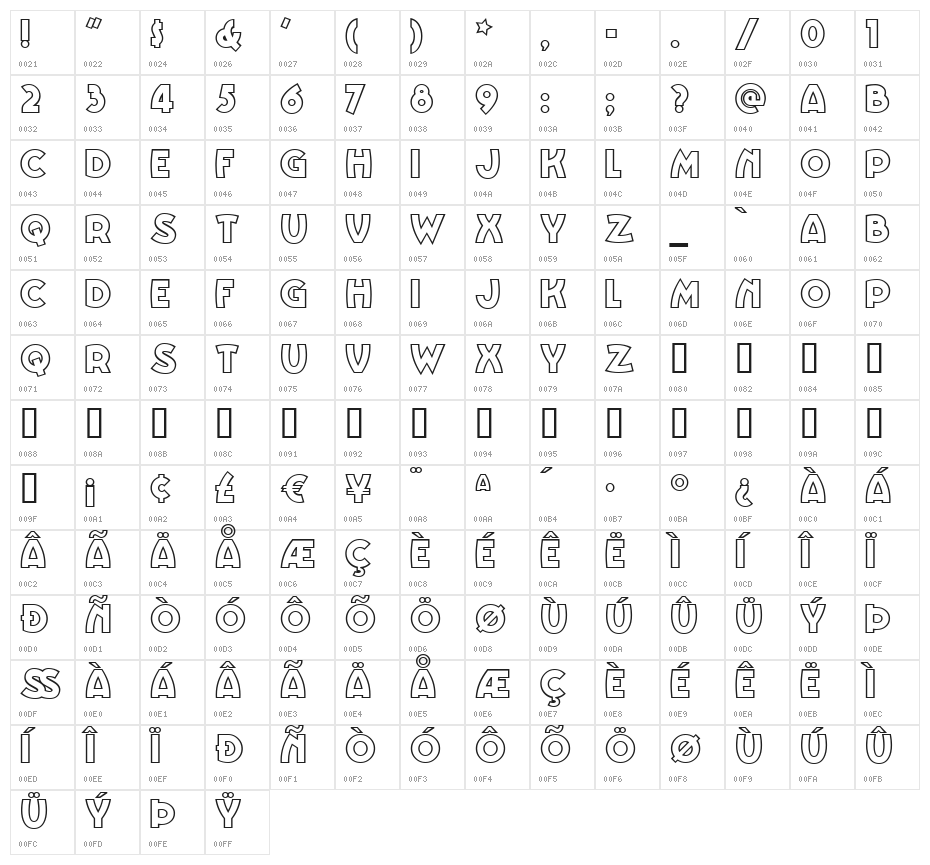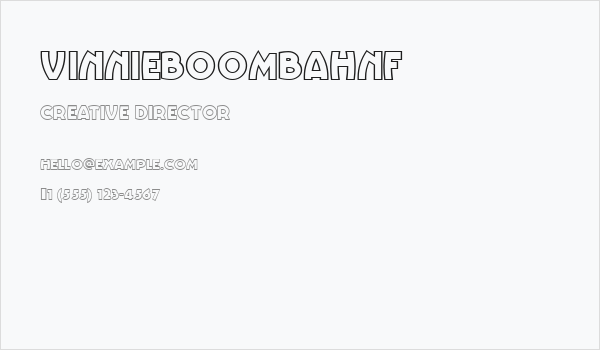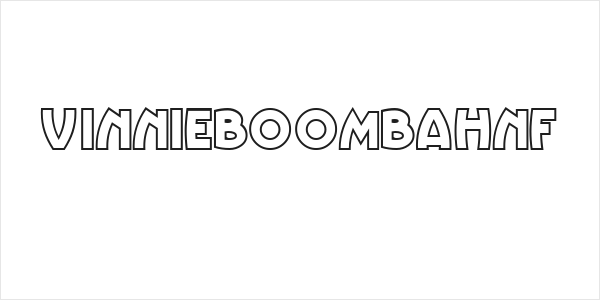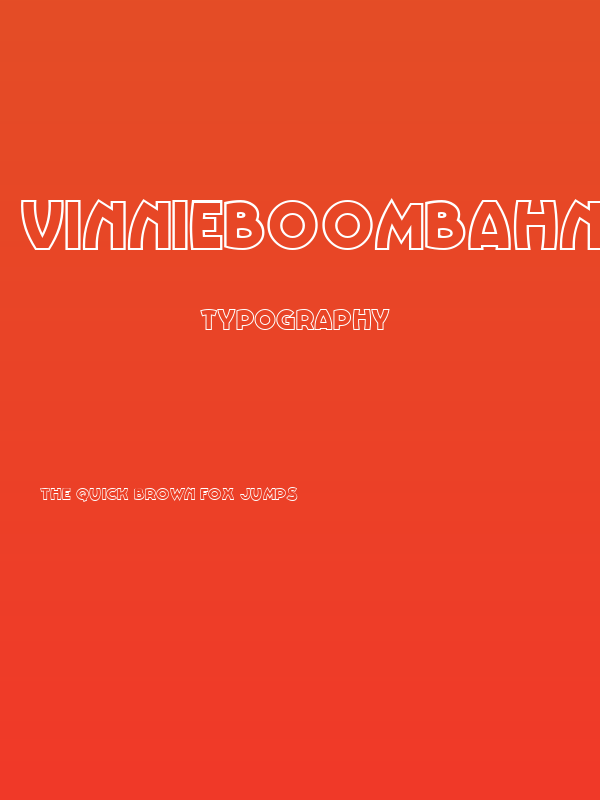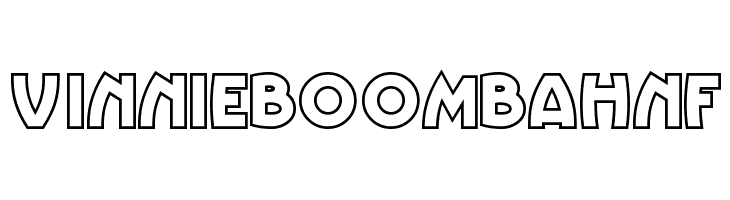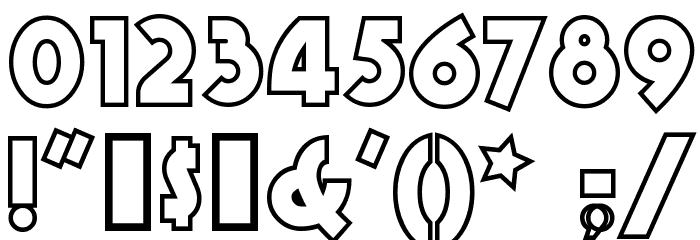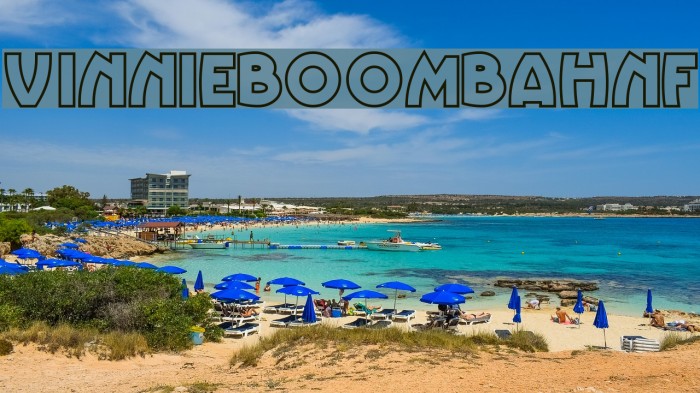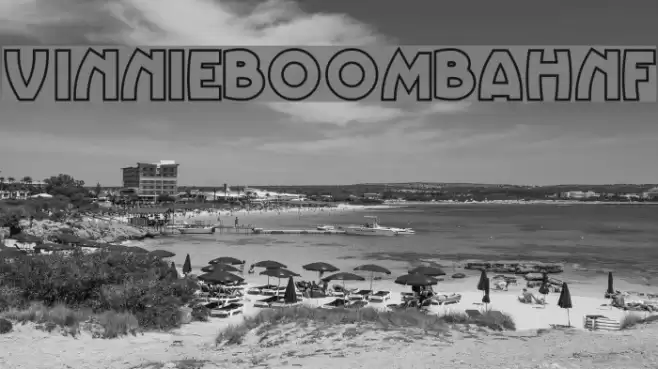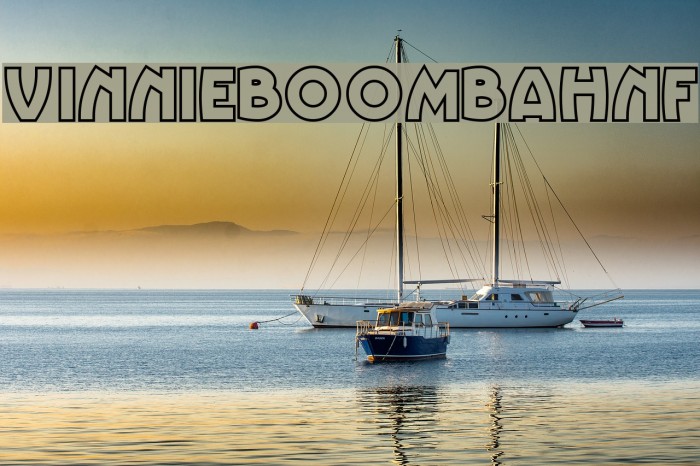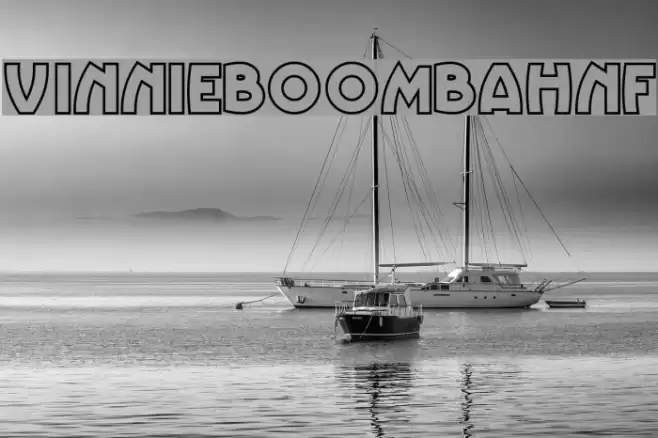
VinnieBoomBahNF Font
| 全体的なスタイル | Playful, Cartoonish |
| おすすめプロジェクト | Ideal for children's books, comic strips, playful branding, and eye-catching posters. |